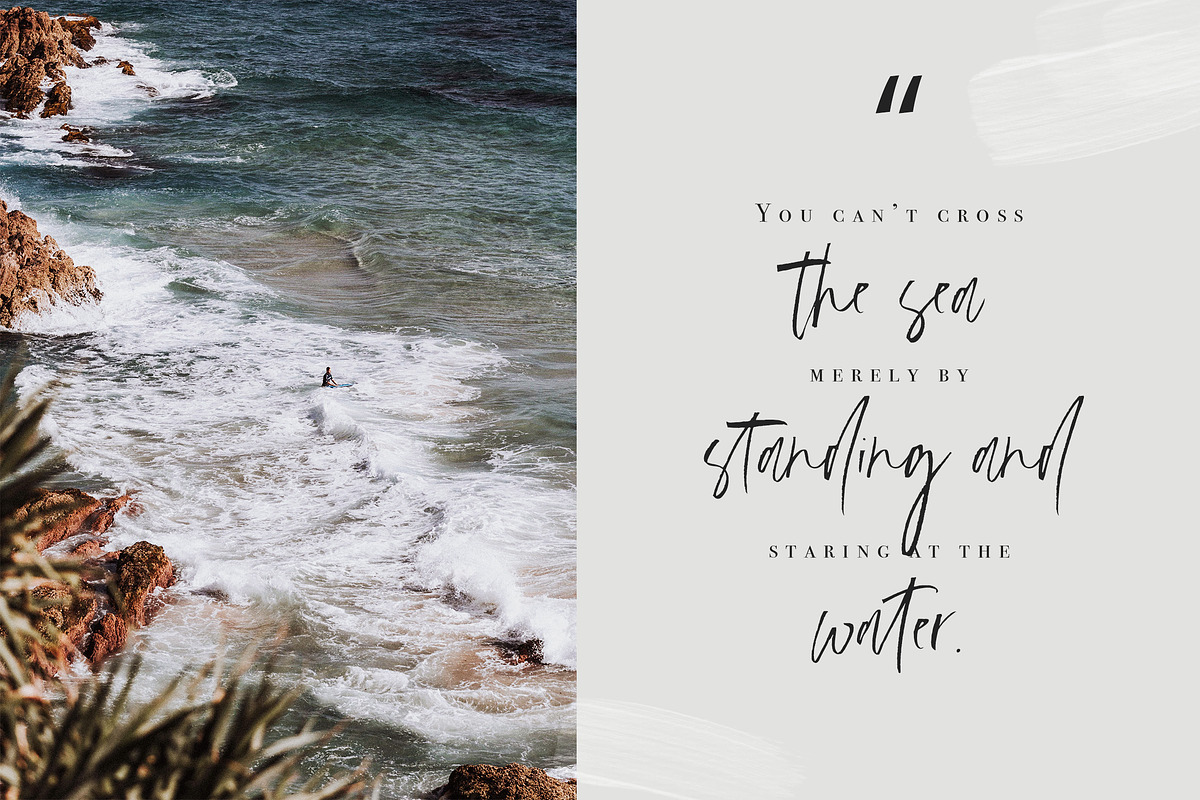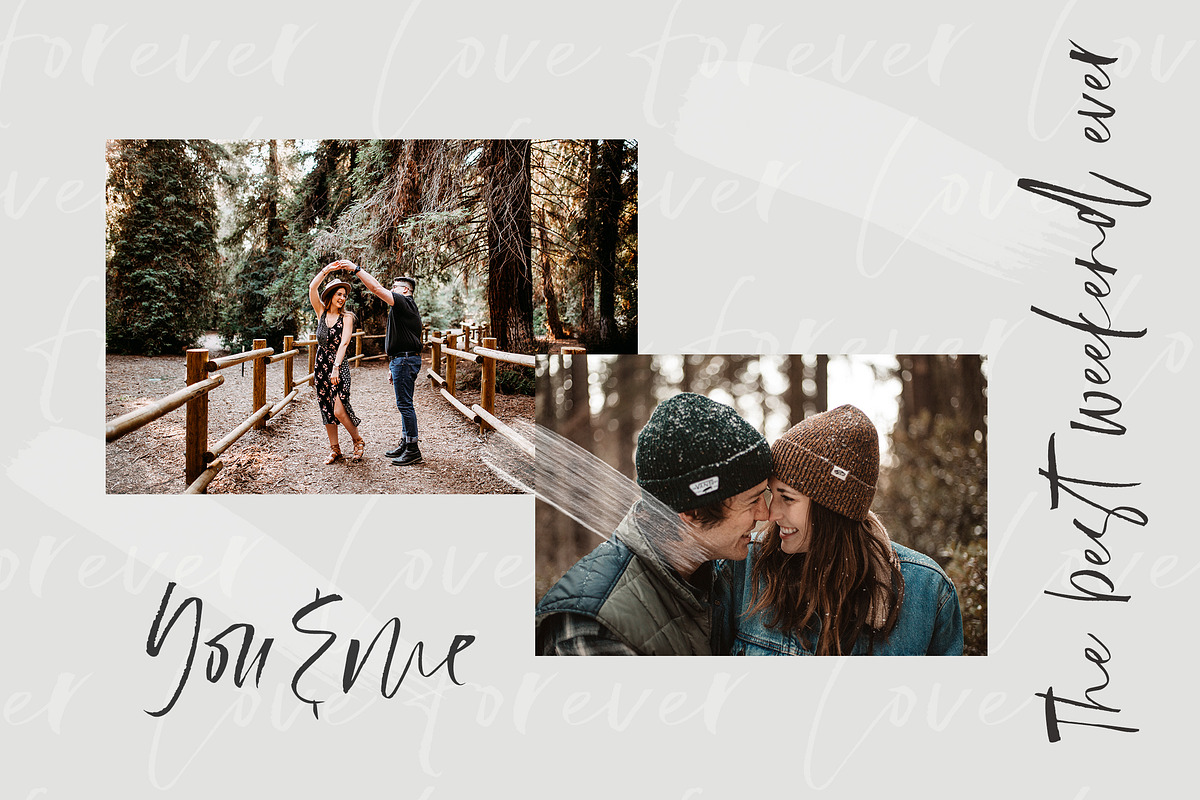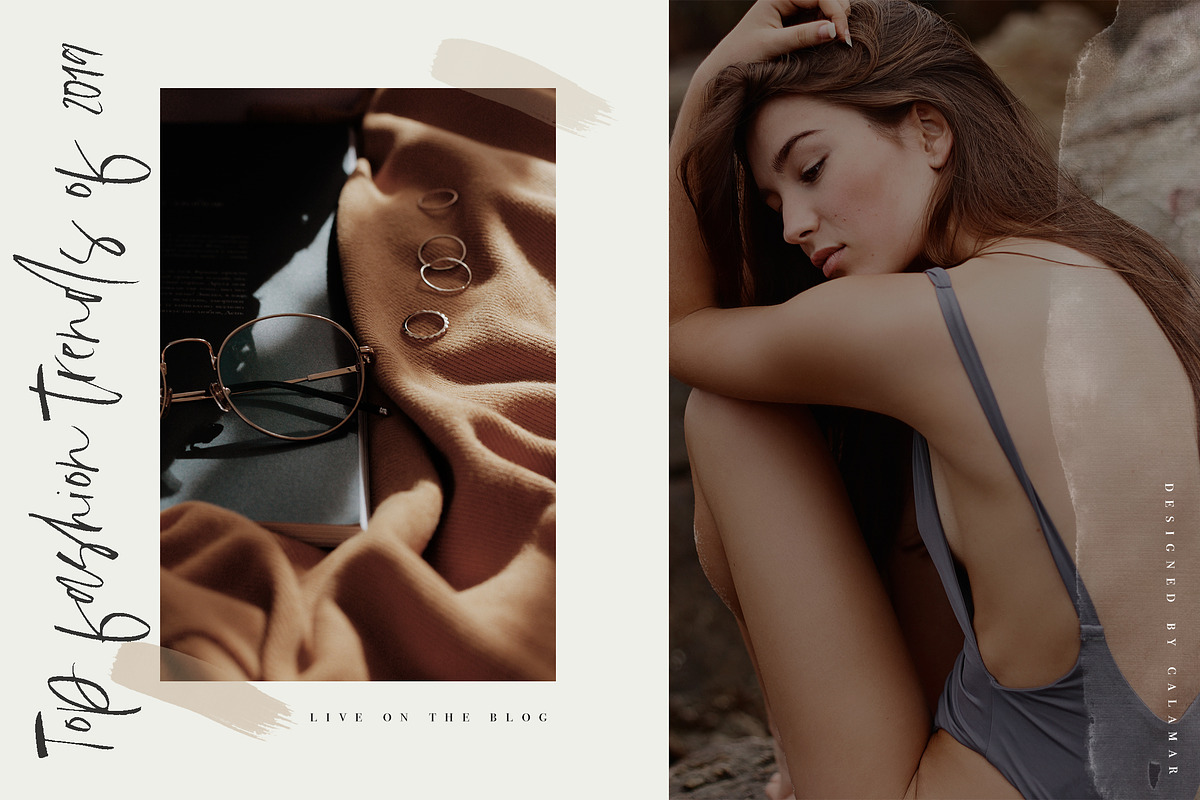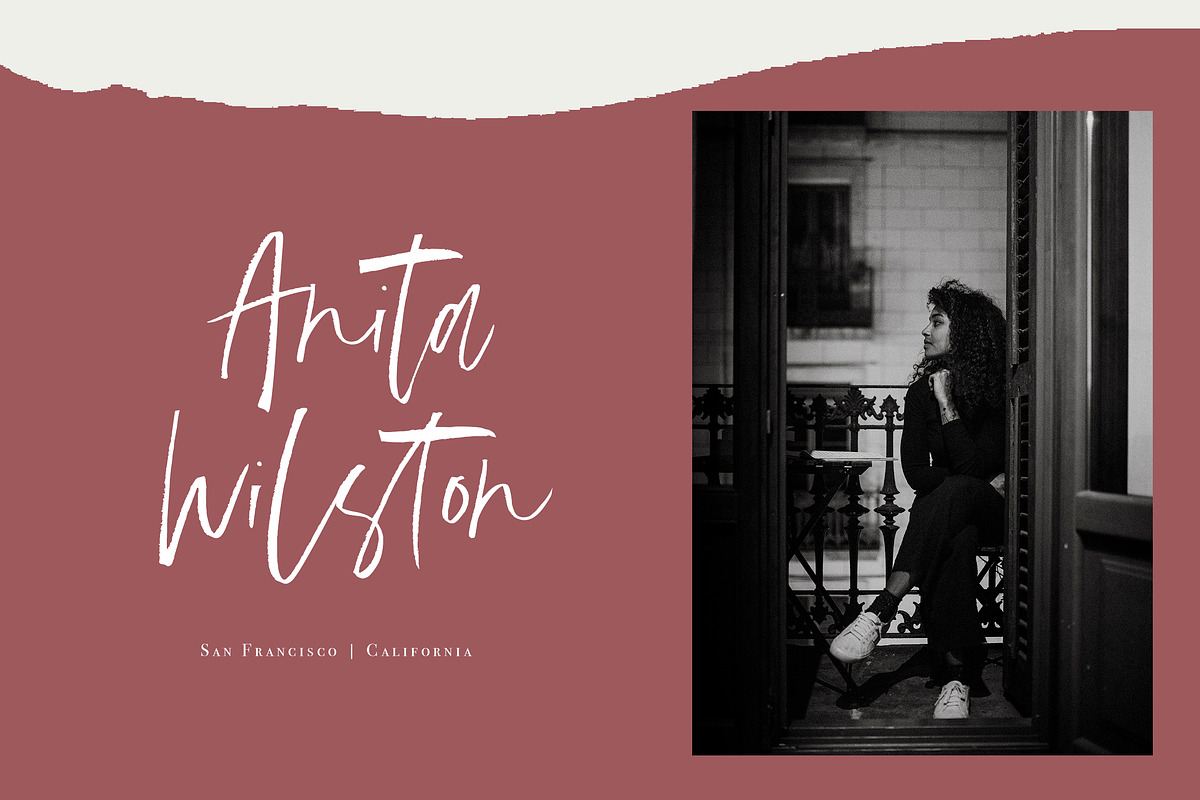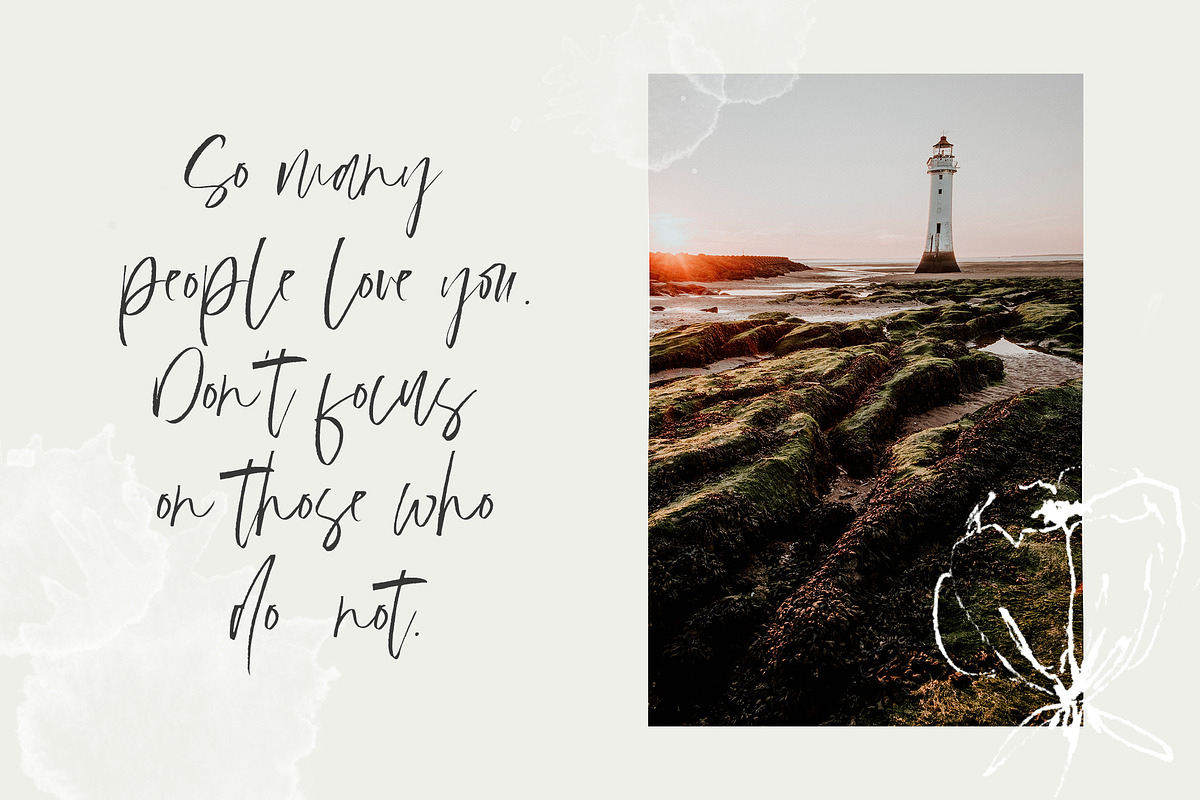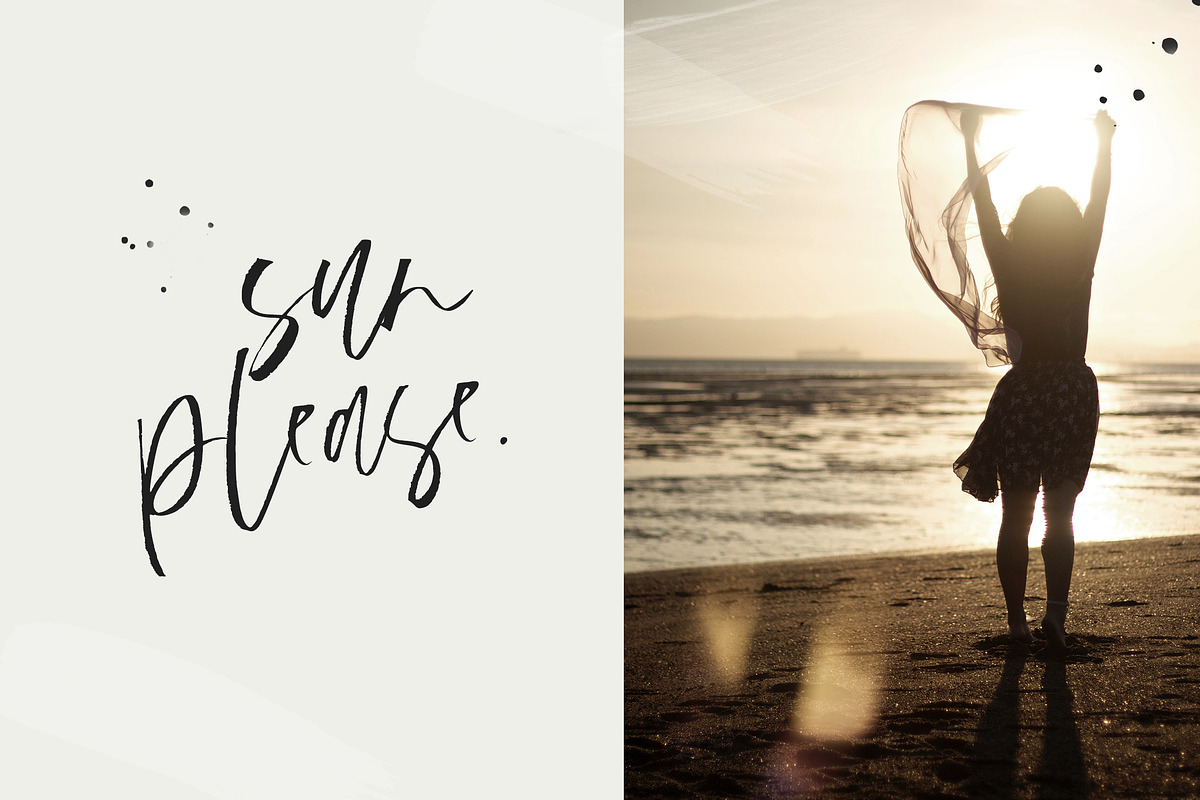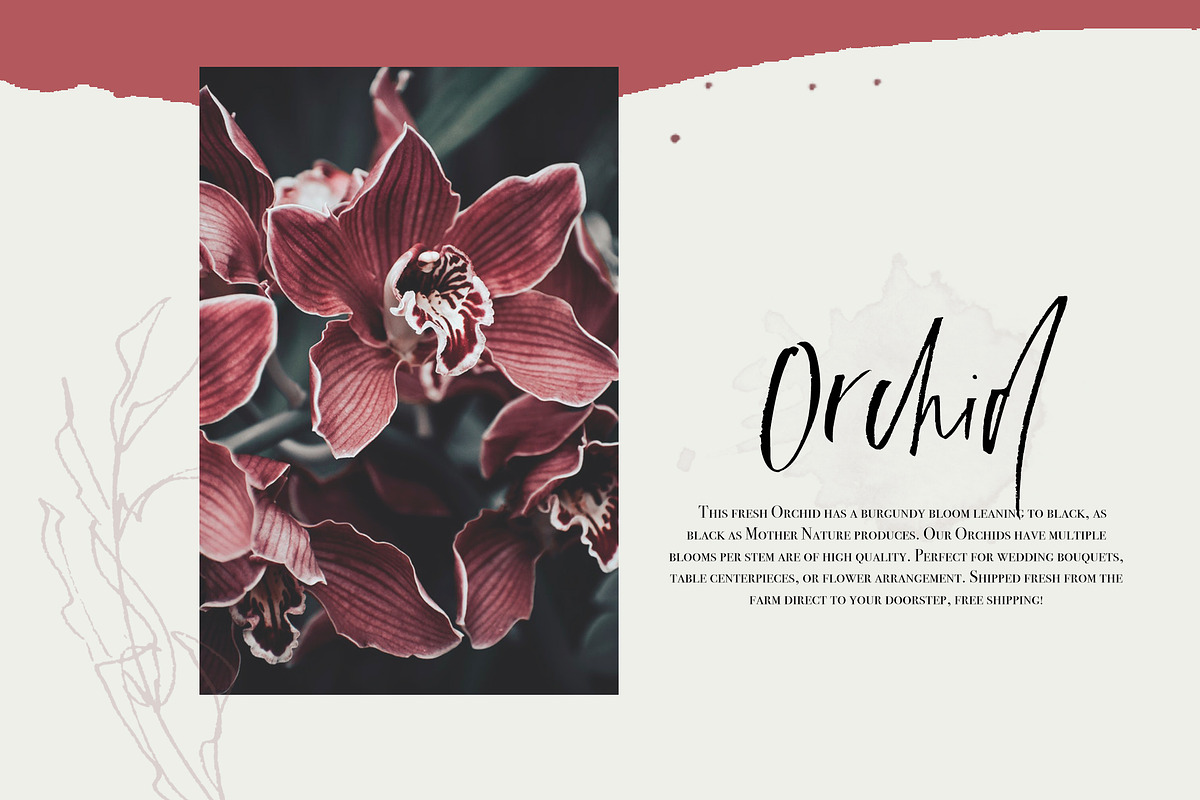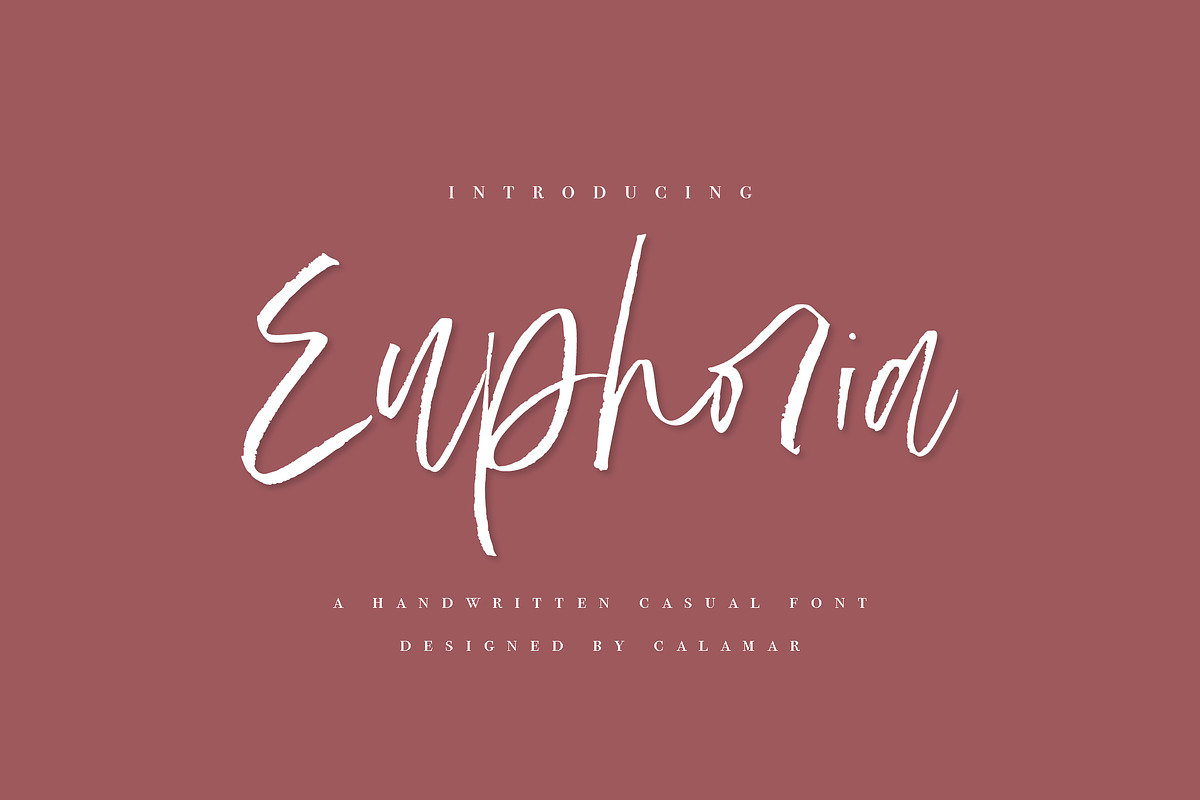
Euphoria | Handwritten Font
Say hello to my new Euphoria Font, a modern handwritten script that is perfect for feminine branding, social media headers, product packaging, wedding invitations and cards and so on. Also the font contains ligatures and stylistic alternates to perfectly re-create natural calligraphy.
Euphoria Font includes Upper and Lowercase Basic Characters, Alternate Lowercase Characters, Numbers and Punctuation. This font is completely hand-drawn and contain 41 ligatures to perfectly re-create natural handwriting.